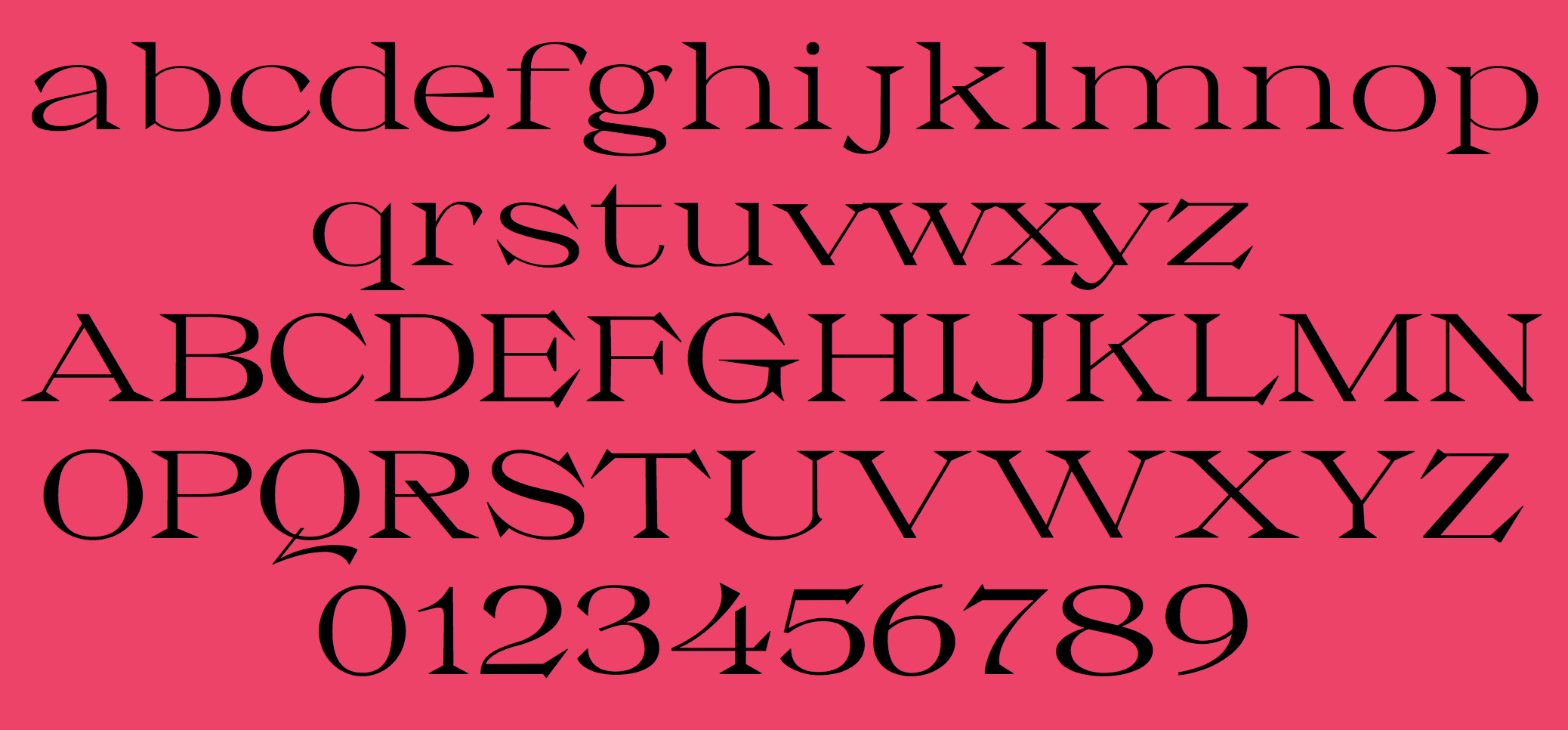
Luca Marsano
As a member of the Italian open source font cooperative Collletttivo, Luca Marsano designed the (free) wide sans and wedge serif typeface pair Messapia (2019). |